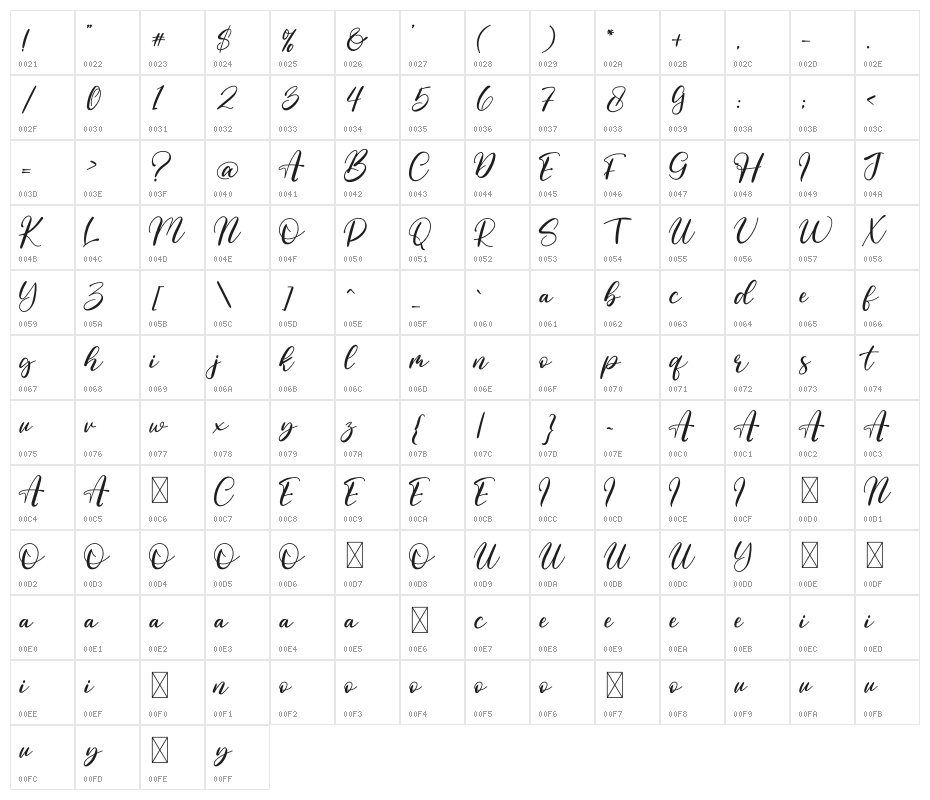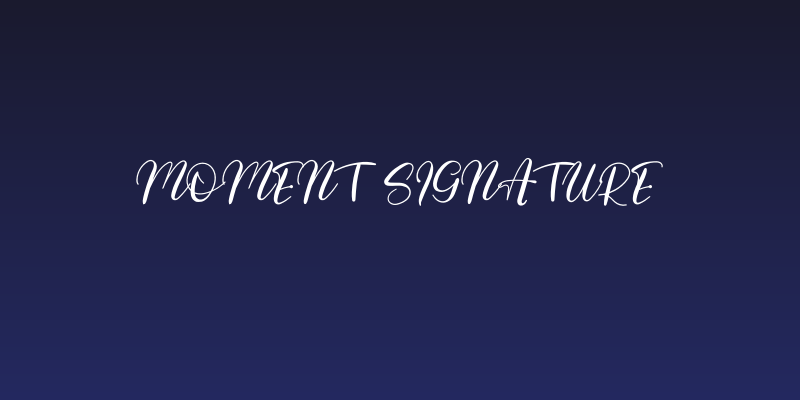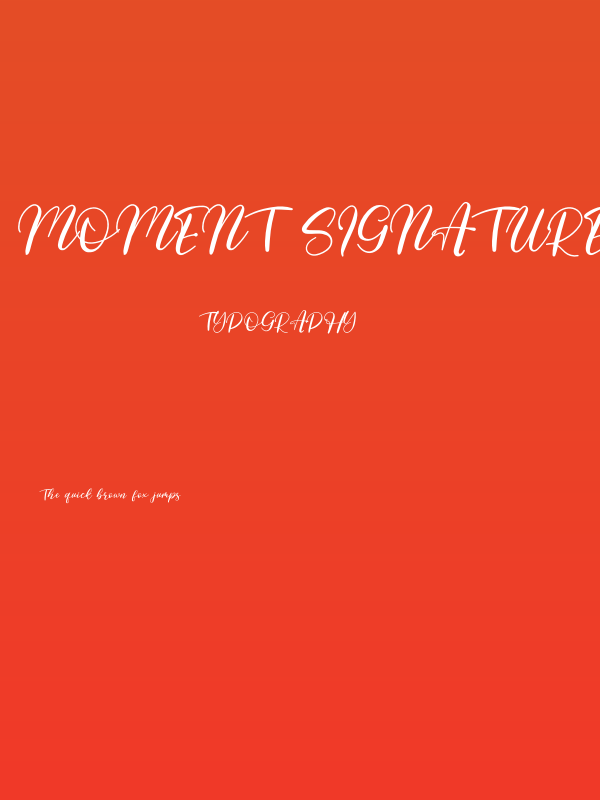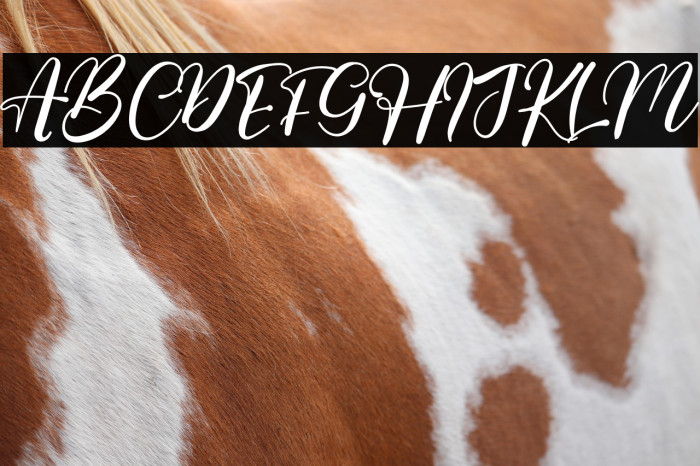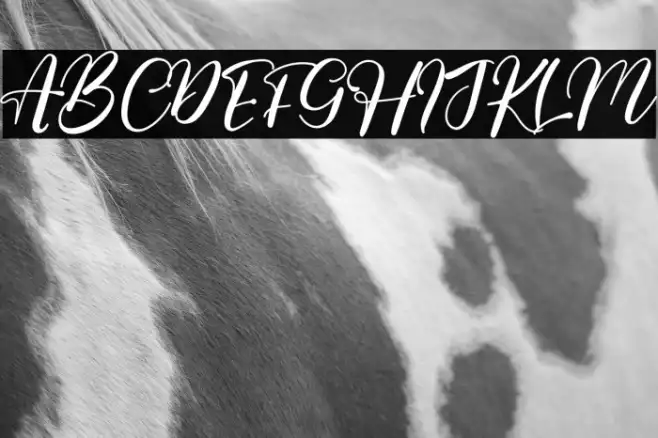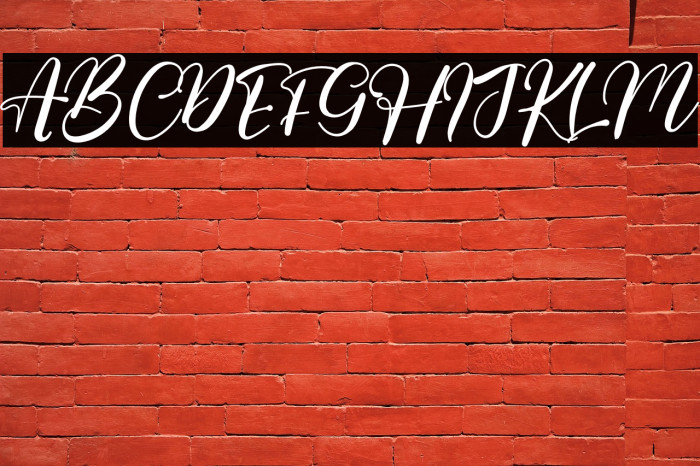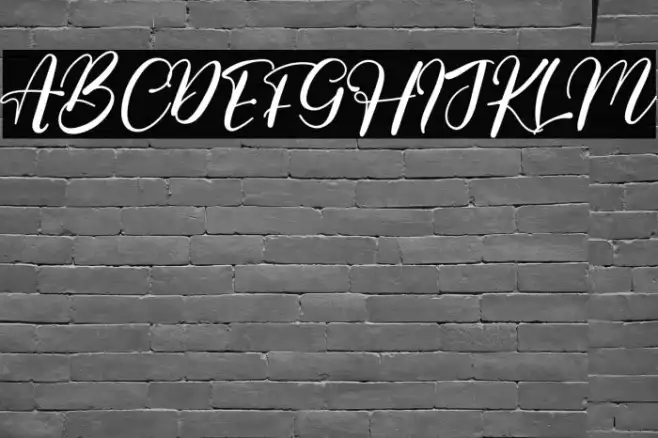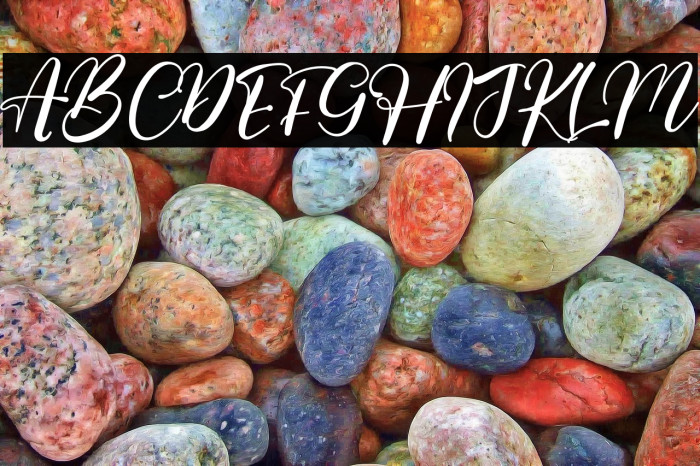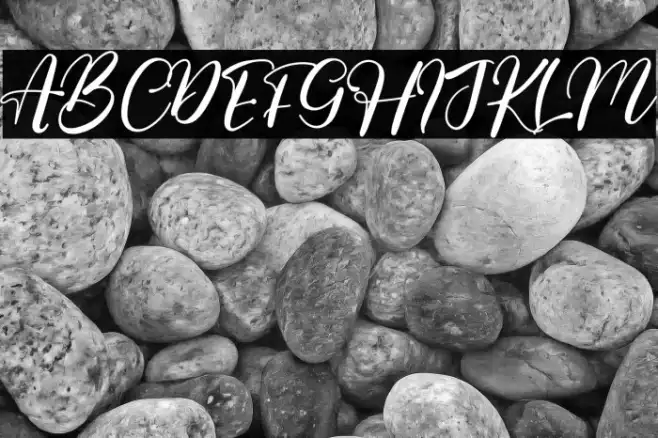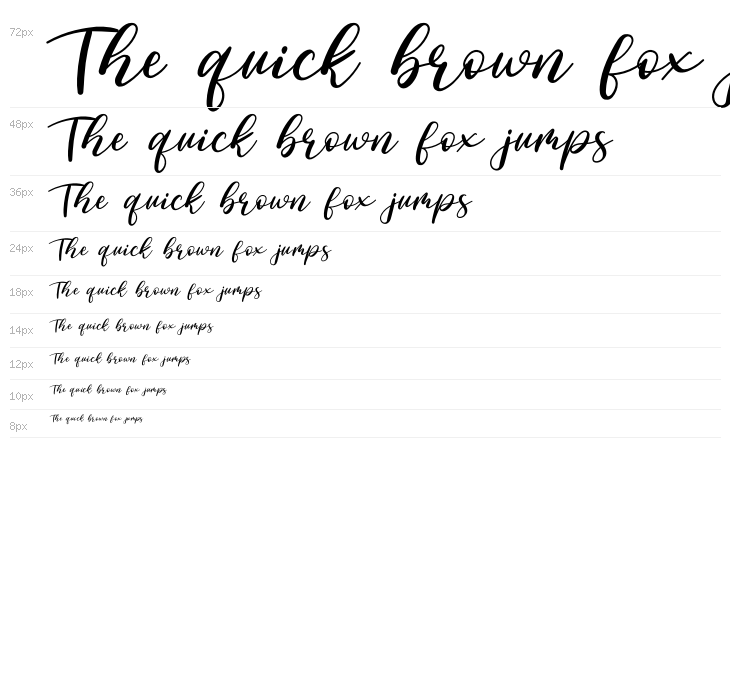
Moment Signature Font
Moment Signature Description
This font exudes elegance and sophistication with its fluid, cursive style. The characters are designed with a smooth, flowing script that mimics the natural motion of handwriting. Each letter is connected, creating a seamless and continuous appearance. The uppercase letters are slightly more elaborate, featuring graceful loops and swirls, while the lowercase letters maintain a consistent, flowing form. The numerals and special characters are crafted to match the overall aesthetic, ensuring a cohesive look across all text. This font is perfect for adding a personal touch to any project, making it ideal for invitations, branding, and decorative purposes.
| Proposed Projects | Ideal for wedding invitations, personal branding, greeting cards, and decorative signage. |